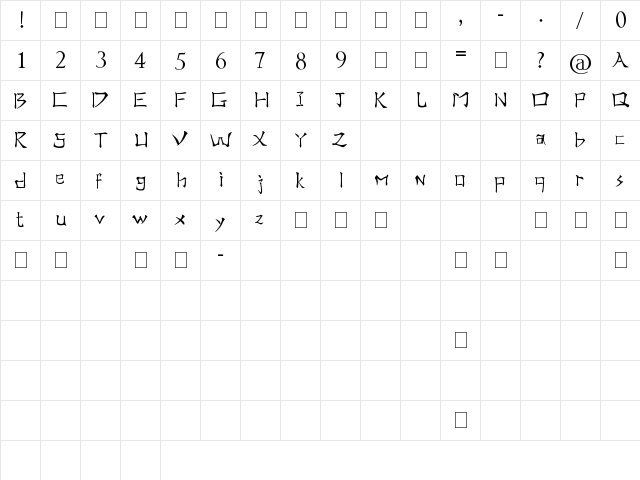
Real Chinese Regular
Design Context for Real Chinese Typeface
Real Chinese is a composed and adaptable typeface that performs quietly and consistently across a wide range of design contexts.